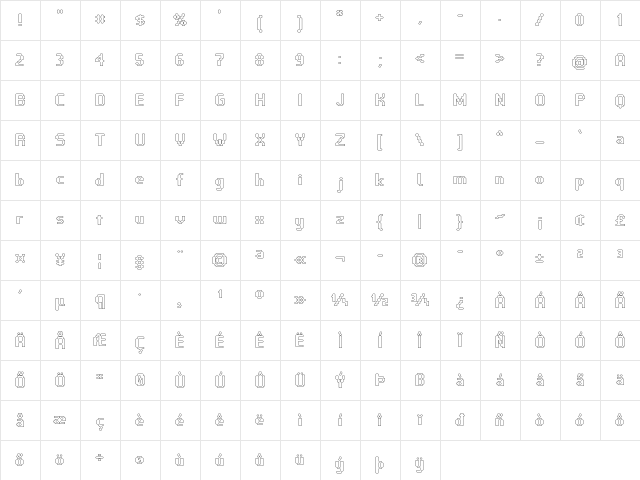
VP Pixel Pro Outline
| Foundry | VP Type |
| Designer | Val Kalinic |
Design Context for VP Pixel Pro Typeface
VP Pixel Pro is rooted in pixel-grid construction, making it a natural fit for game UI, retro computing aesthetics, and digital nostalgia projects.
Well-suited to indie game interfaces, retro computing aesthetics, and pixel art-adjacent design work.